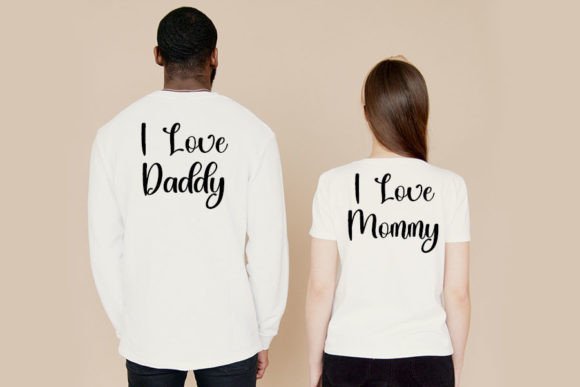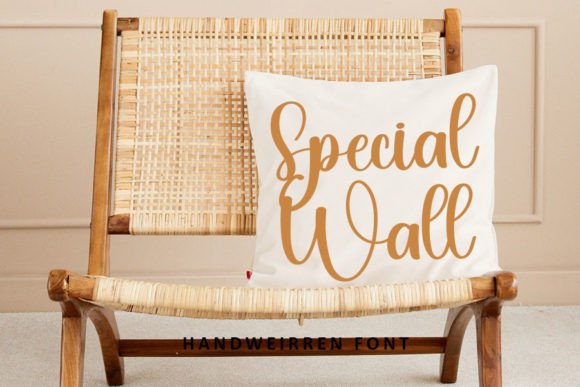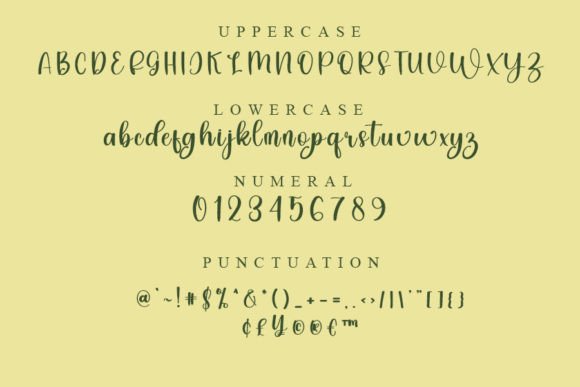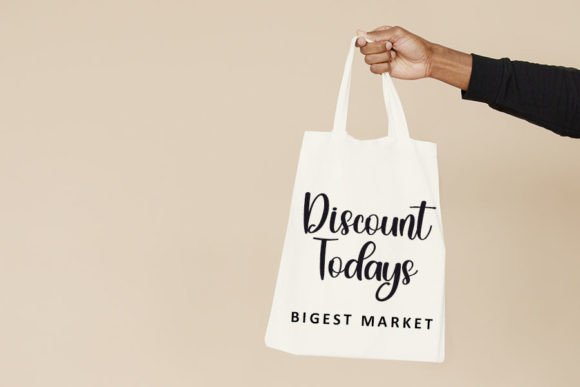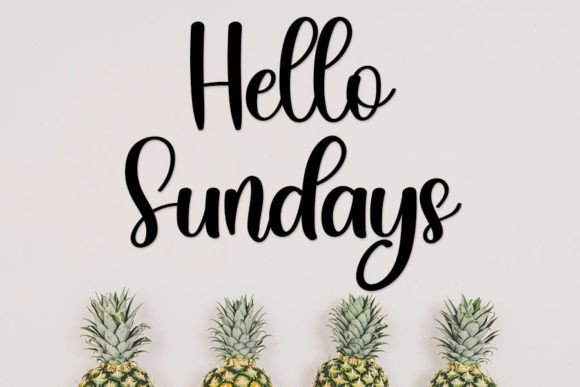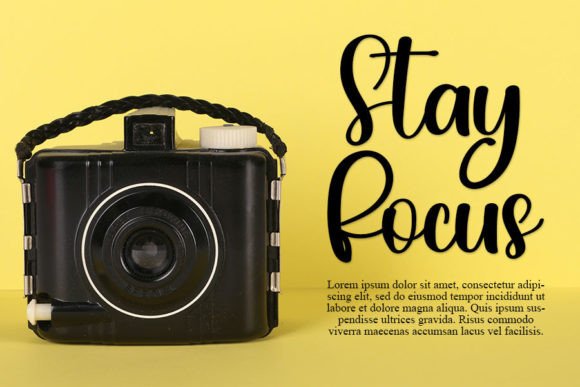
Yellow Font
About Yellow Font
Yellow font is a friendly handwritten font, carefully designed to become a true favorite among designers and creative enthusiasts. When you download Yellow font, you add a warm, inviting, and approachable touch to all your creative works. This font’s natural, handwritten style makes it perfect for adding personality and charm to a wide range of design projects.
A Warm and Approachable Handwritten Style
Yellow font features smooth and balanced strokes, giving your text a personal and casual feel. Its design is crafted to convey friendliness and simplicity, making it suitable for projects that need an authentic handwritten look. Whether you are designing invitations, social media graphics, or branding materials, Yellow font will help your creations stand out with elegance and ease.
Versatile Usage Across Projects
This font offers remarkable versatility. It works well on greeting cards, logos, packaging, posters, digital designs, and more. The Yellowfont adapts effortlessly to different styles and themes, providing a consistent and engaging handwritten touch wherever you apply it.